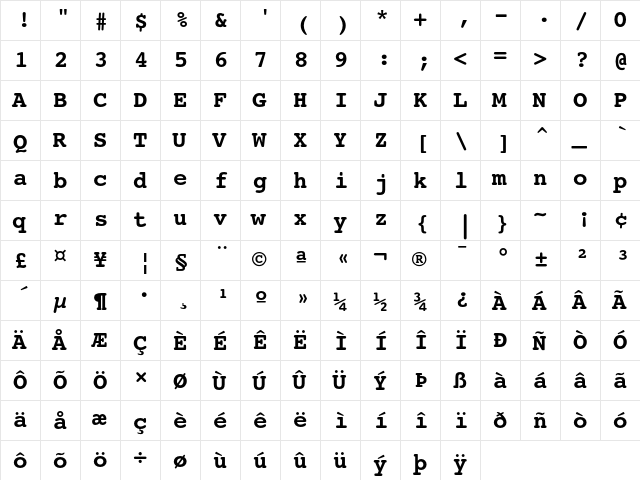
Courier 10 Pitch Bold
Design Context for Courier 10 Pitch Typeface
Courier 10 Pitch uses fixed-width spacing throughout, giving it the structured, systematic character associated with coding environments and technical documentation. The heavy weight commands attention and anchors typographic hierarchies.
Pro Tip: Pair Courier 10 Pitch with a proportional sans for UI contexts where code-style labels and regular body copy need to coexist.